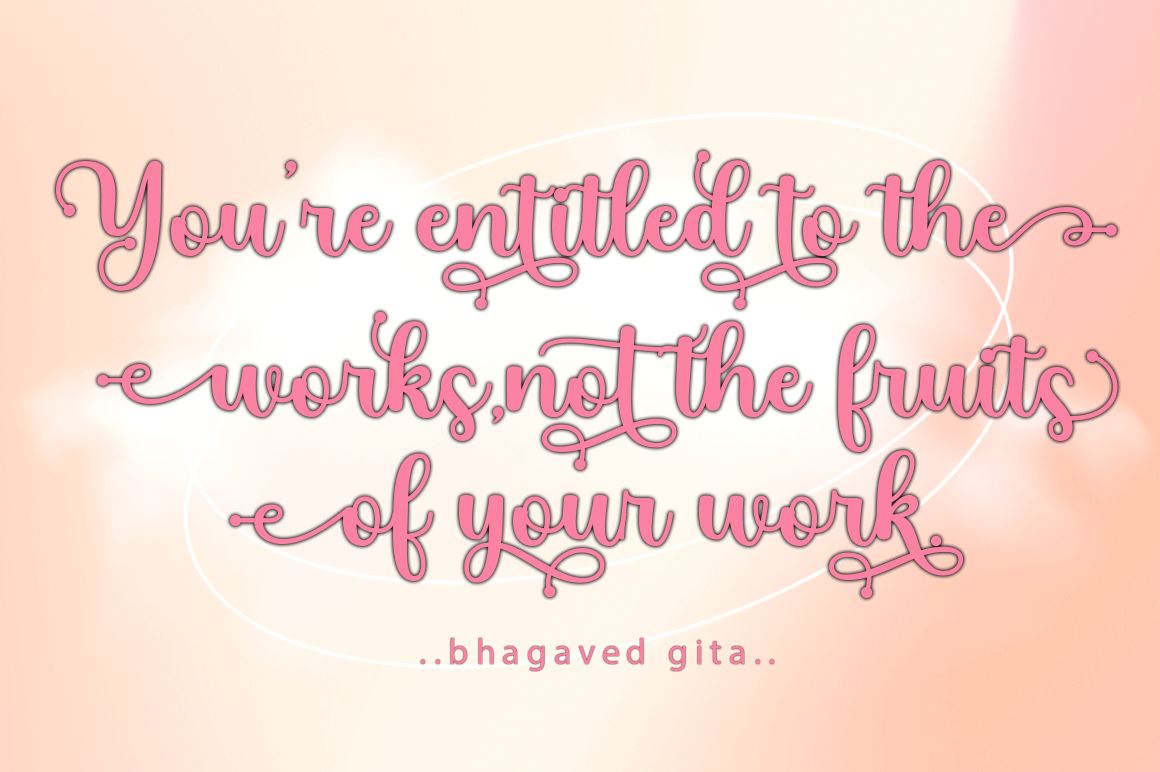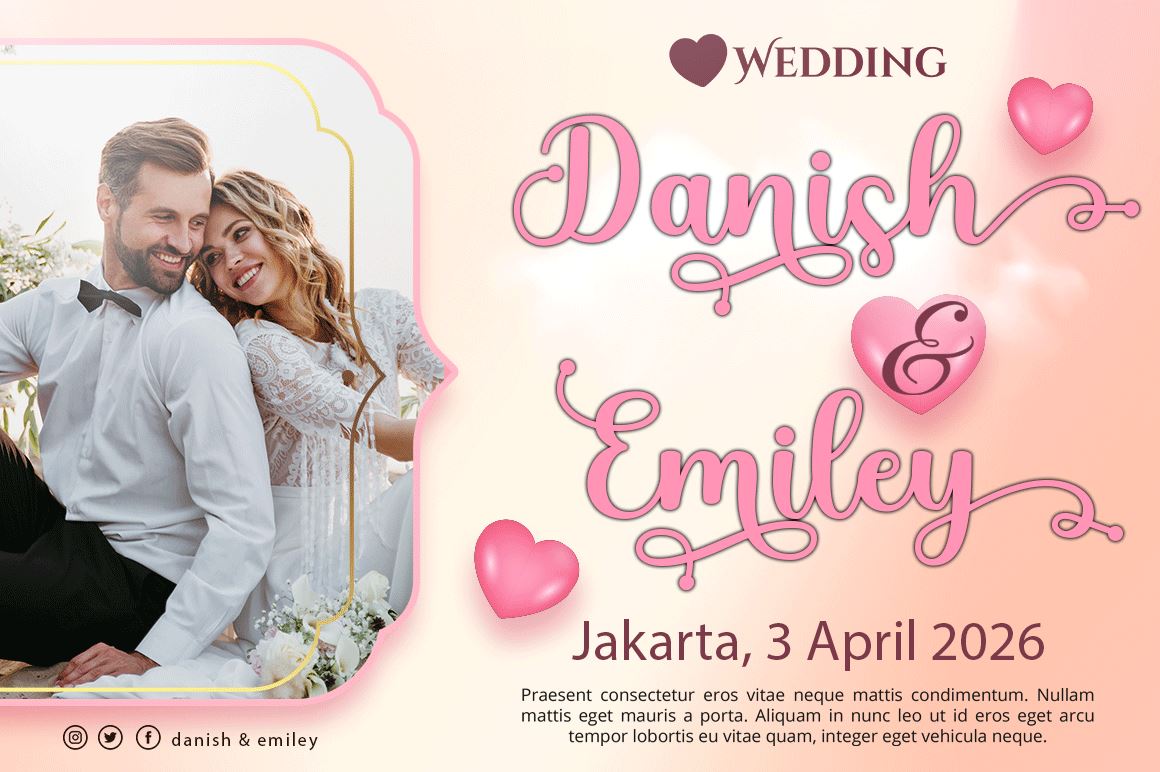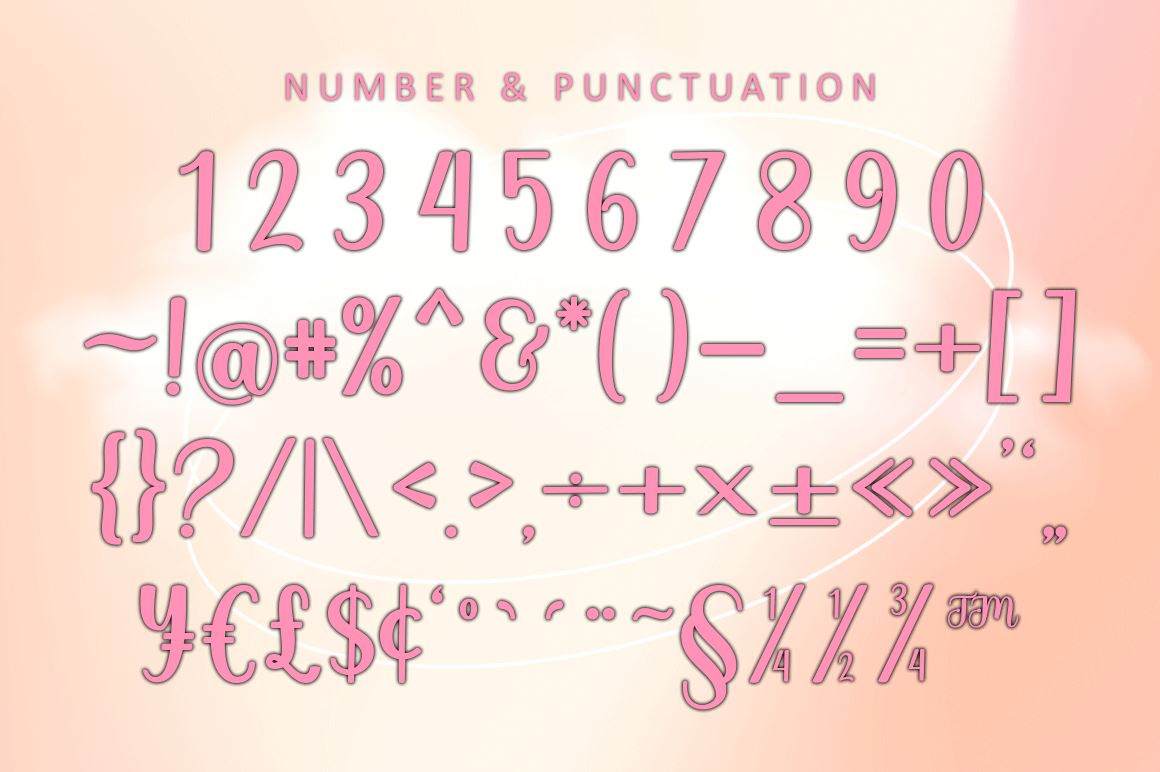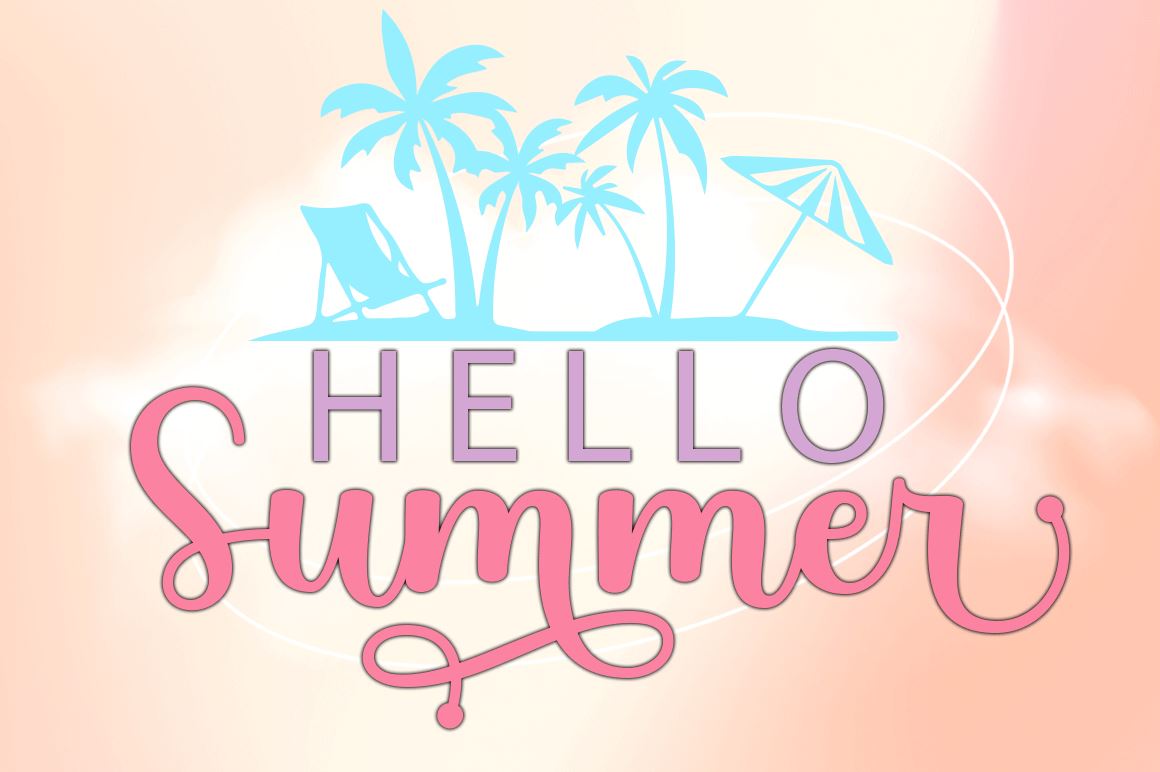
About Girly Stylish Script
Girly Stylish Scrip t is a smooth and elegant handwritten font. This font has a lovely touch of character, perfect for a variety of designs. Buttermilk features varied baselines, unique smooth lines, and stunning alternatives. Add to your most creative ideas and see how to make art! Files include: Girly Stylish Script.otf Girly Stylish Script.ttf See all the glyphs here: http://s28.postimg.org/7osts7ezx/All_Glyphs.jpg To enable the OpenType Stylistic alternative, you need a program that supports OpenType features such as Adobe Illustrator CS, Adobe Indesign & CorelDraw X6-X7. How to get alternate glyph access from open type fonts: http://youtu.be/iptSFA7feQ0 There are additional ways to access alternatives/swashes, using the Character Map (Windows), Nexus Font (Windows), Font Book (Mac) or a software program such as PopChar (for Windows and Mac). How to access all alternative characters, using the Windows Character Map with Photoshop: https://www.youtube.com/watch?v=Go9vacoYmBw Thank you!